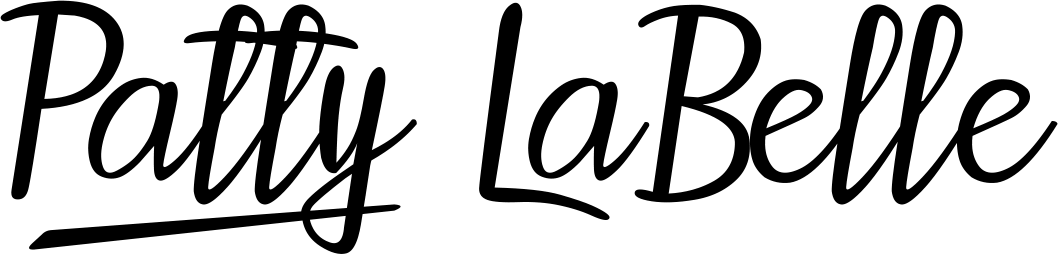
Patty LaBelle Font
Patty LaBelle font is gorgeous due to its hand-written letters if it is used in designing business cards and wedding celebrations. Uppercase and lowercase letters are very romantic, but the numbers are very simple and in the form of sensors, making your art a hundred times more attractive than before.
Also, we suggest using this cursive font in the headlines of magazines and fashion posters to have the best and most enjoyable day.
For partial version use ( or ) after a letter to display the Swashes and use _ to display tt ligature. Example: Pa_y( LaBelle)
– Alternates by using Open Type Features or PUA for b f p s v w r and &.
– Ligatures by using Open Type Features or PUA for rr and tt.
– 15 swashes by using Open Type Features or PUA.